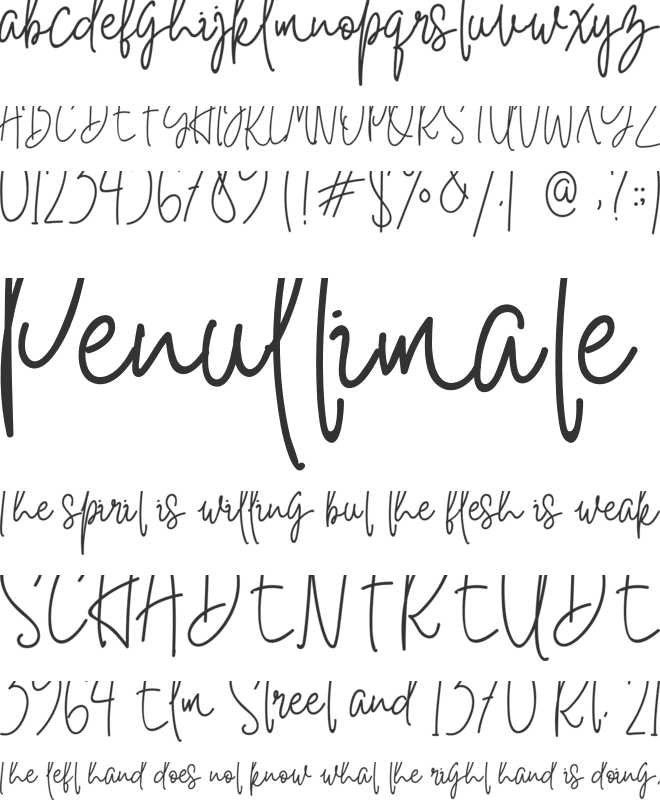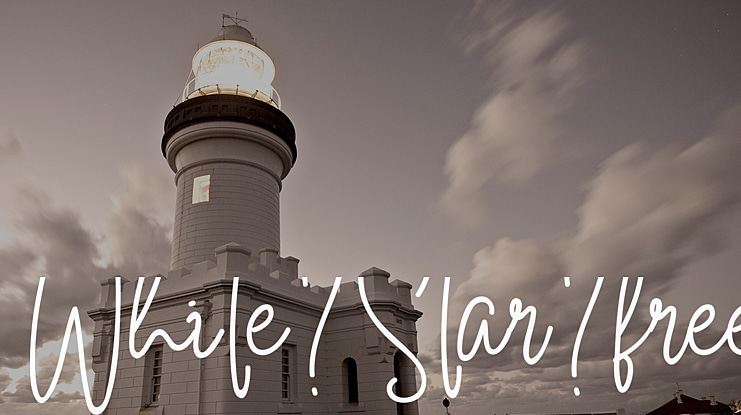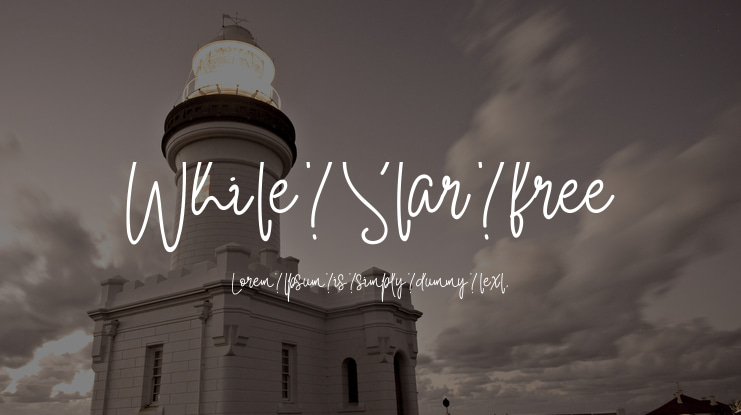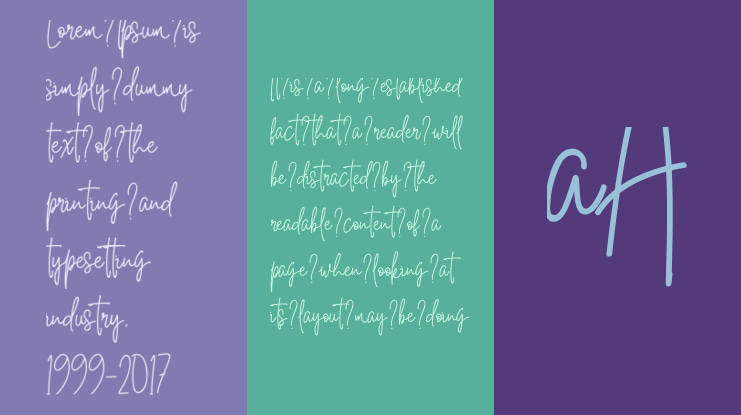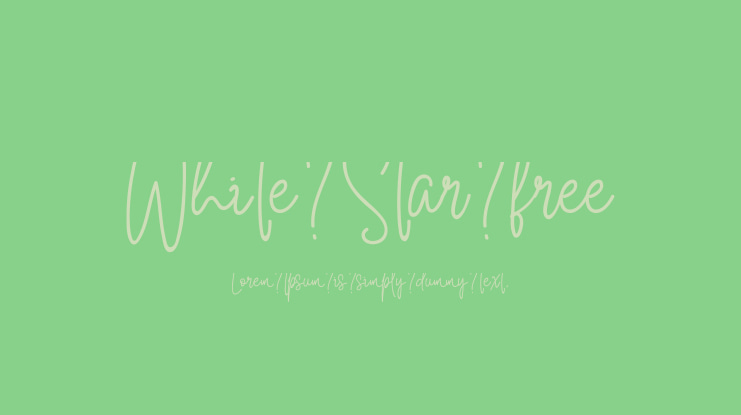
White Star free Font
Introducing White Star for your amazing project design. With chic and natural hadwritten style, it brings a beautiful and chic typeface. White Star is best used for logotype, branding, wedding and quotes.